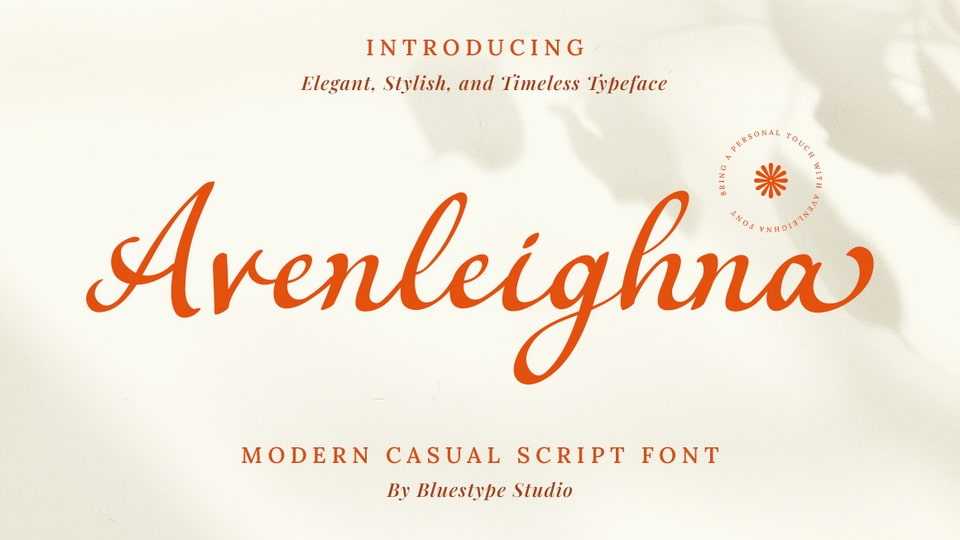
Download Avenleighna font, a beautifully crafted script typeface that blends effortless casual strokes with a hint of vintage allure and modern simplicity.